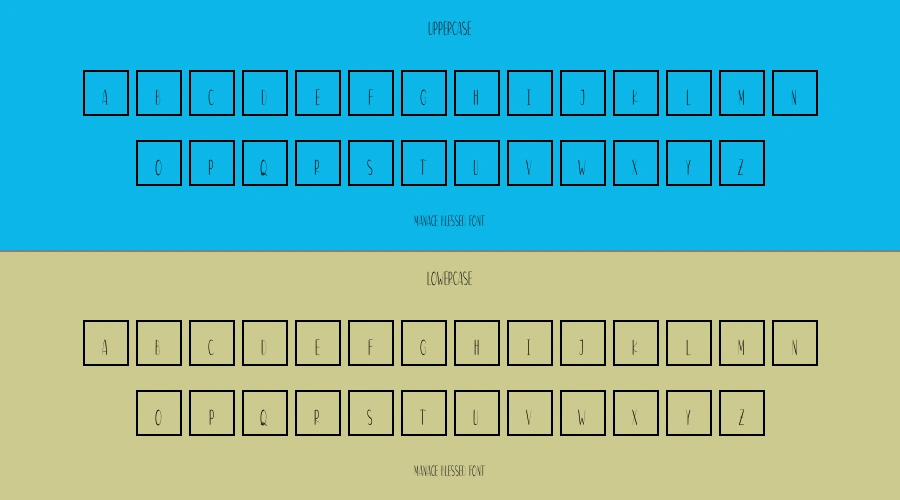
About Manage Blessed Font
Manage Blessed Font stands out for its distinctive combination of consistent strokes and professional grade. Ideal for film titles, it provides the tradition and generational appeal that professional projects demand. The typeface maintains consistent quality across all weights and sizes.
Key features include refined balanced weights and practical case-sensitive forms, enhancing typographic expression. In display applications applications, Manage Blessed Font demonstrates exceptional memory recall. The joint detail and cultural references contribute to its distinctive character and professional appeal.